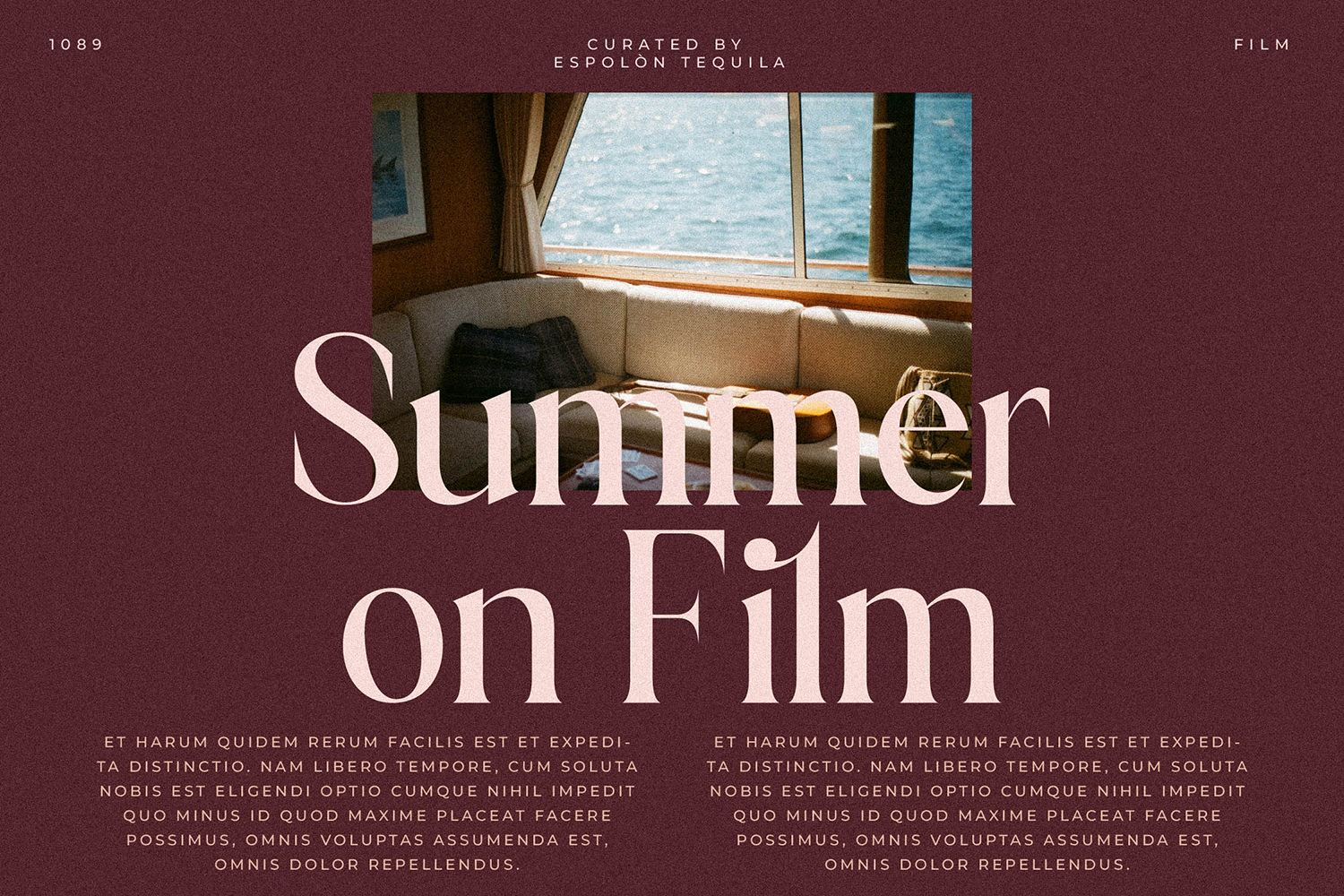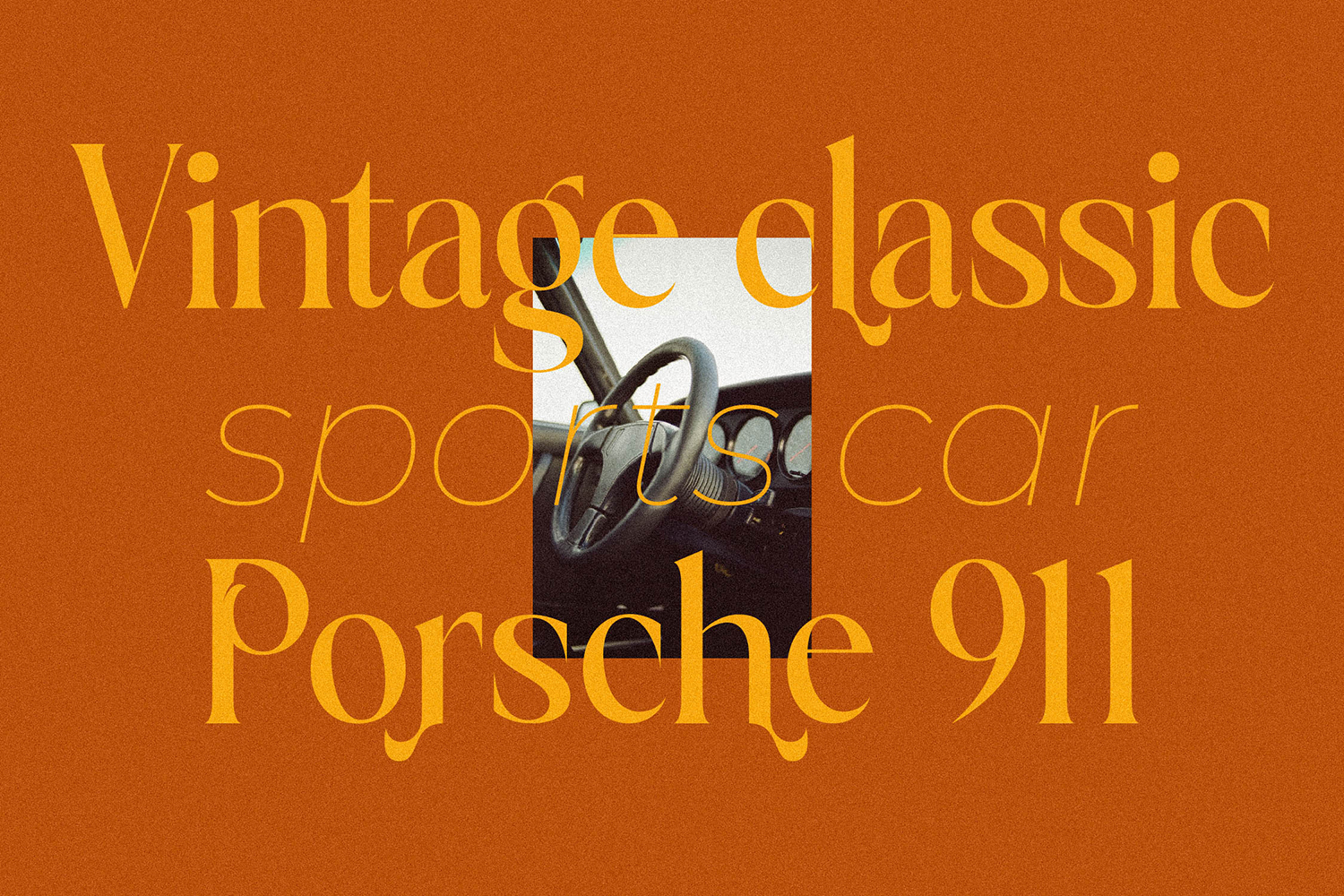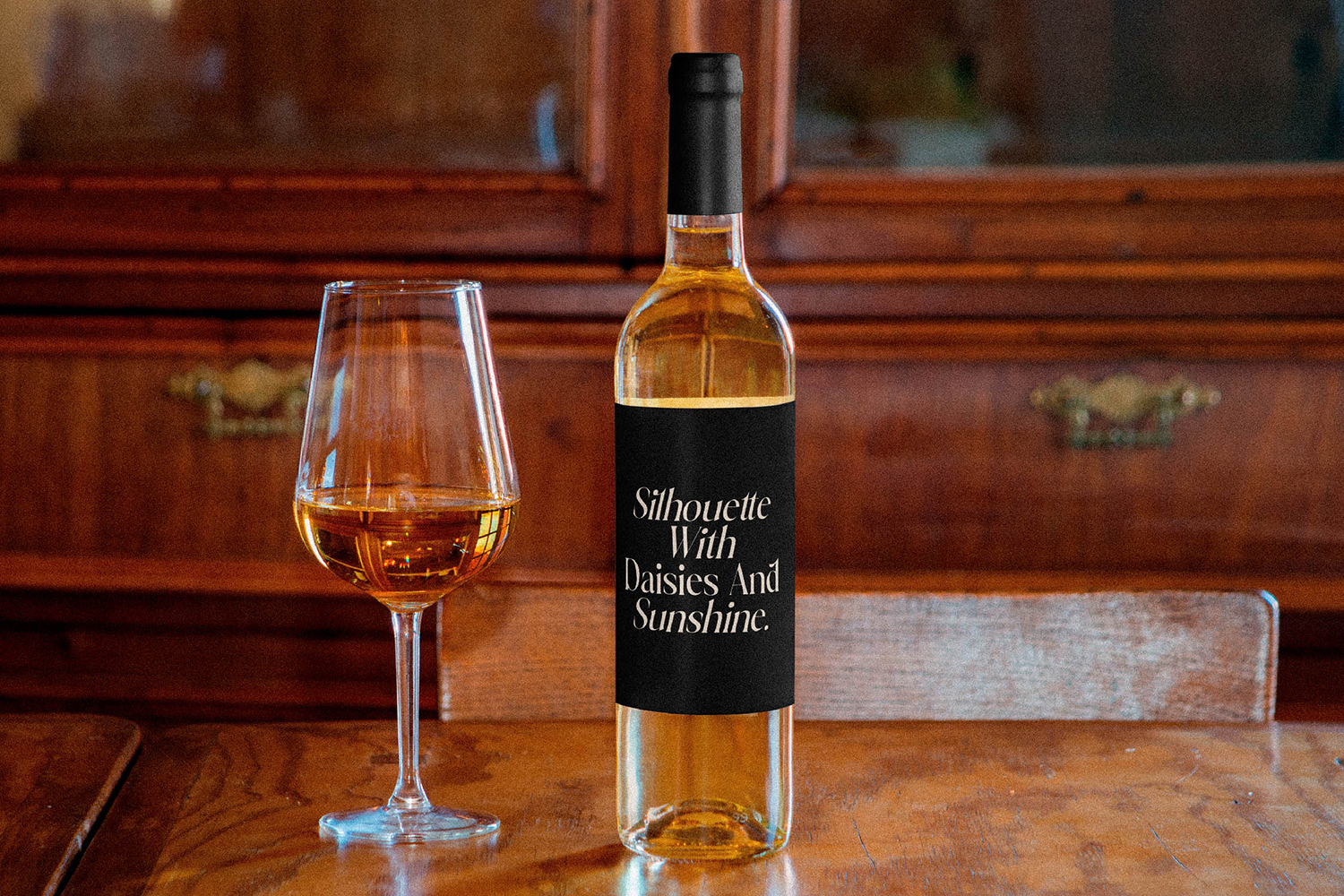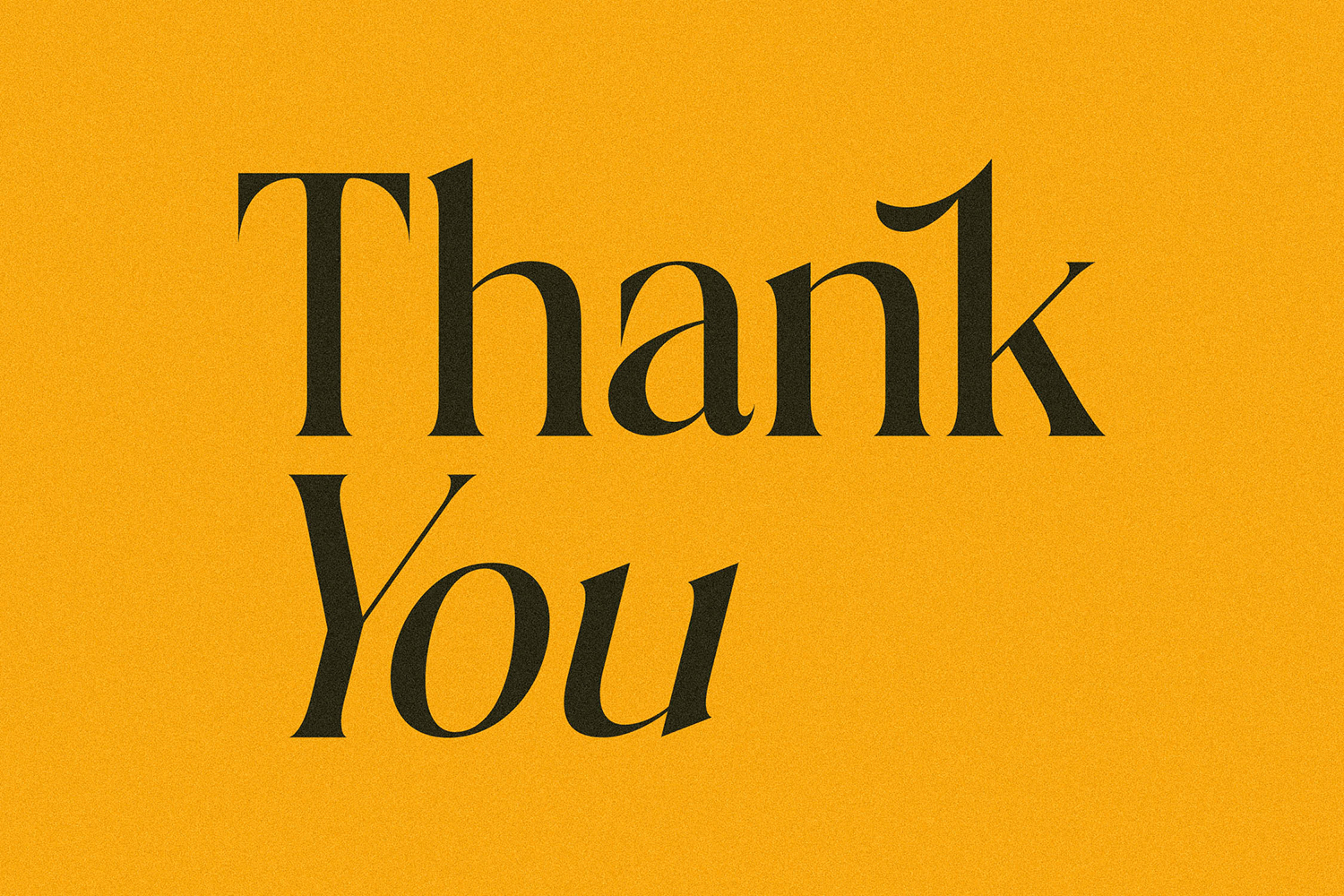
Gracie Free Font
Gracie Free Font is a contemporary and timeless serif typeface that exudes its own distinctive style and fashionable aesthetic. This versatile typeface is ideal for creating elegant and luxurious logos, designing captivating book or movie titles, establishing a strong presence for fashion brands, enhancing the visual appeal of magazines, clothing designs, lettering, quotes, and much more. With Gracie, you can effortlessly infuse your projects with a sense of sophistication and allure. Unlock the limitless possibilities this exceptional typeface offers, allowing your creative expressions to shine with unmatched elegance and style. This free typeface was designed by a talented Storytype Studio. If you like it don’t forget to check out the full version.